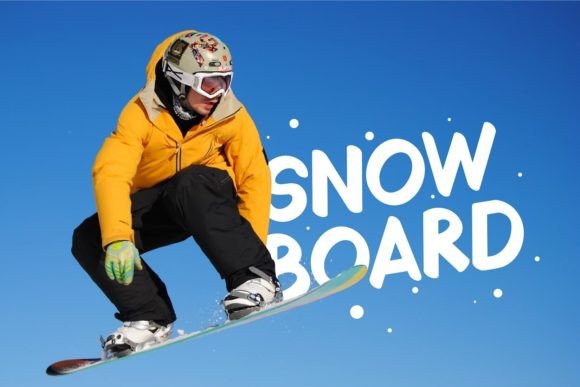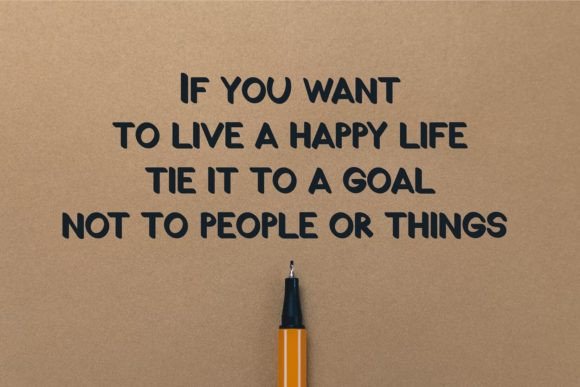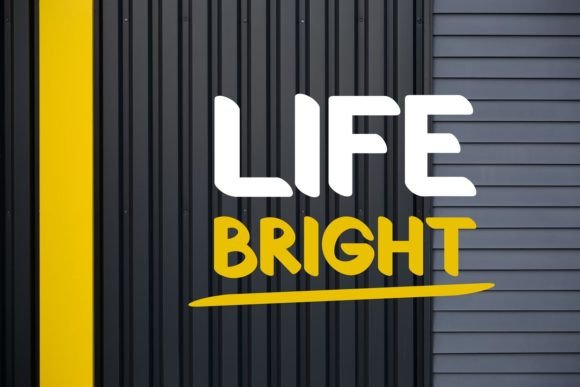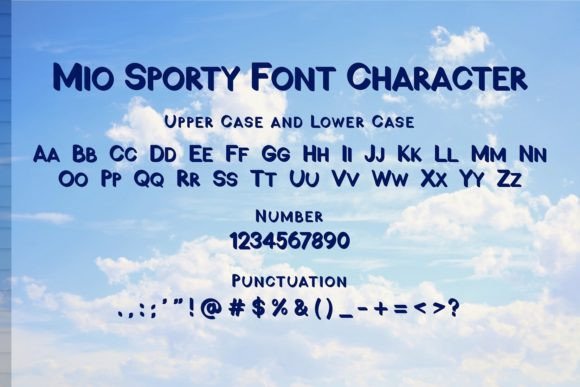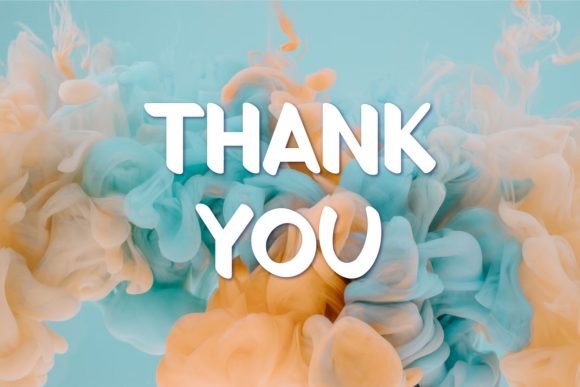
Introduction to Mio Sporty Font
Have you ever found yourself in a creative jam, staring at a blank canvas, and desperately seeking the perfect font to bring your vision to life? For designers, the quest for the ideal typography can be a daunting task. But, what if you stumbled upon a font that not only meets your expectations but exceeds them? Enter Mio Sporty Font, a bold display font designed to elevate your creative project and leave a lasting impression.
As a valuable design resource, Mio Sporty Font offers a unique blend of style and sophistication, making it perfect for branding projects, logo designs, and social media posts. Its high-quality design and transparent background capabilities make it an ideal choice for designers seeking a free download that won’t compromise on quality.
With Mio Sporty Font, you can take your designs to the next level and add a personal touch that resonates with your audience. Whether you’re working on a product packaging design, a wedding invitation, or a product label, this font is sure to make your project stand out.
Key Features of Mio Sporty Font
- High-quality design for creative projects, perfect for sports and fitness themes.
- Comes with a transparent background, allowing for easy customization and composition.
- Designed with a modern and sporty aesthetic, ideal for logos, branding, and typography.
- Features a high-resolution design, suitable for printing and display on various devices.
- Perfect for designers looking for a unique and eye-catching font to elevate their creative project.
Honest Review: Mio Sporty Font
One of the standout features of the Mio Sporty Font is its versatility. It’s perfect for a variety of uses, from sports branding to fitness marketing. I was impressed with the high quality of the font, and it’s definitely suitable for a professional design.
- ✨ Great for sports and fitness branding
- ✨ Suitable for both digital and print design
- ✨ High quality and professional-looking
- ⚠️ Limited character set (only includes uppercase and lowercase letters, with a few symbols)
- ⚠️ No support for transparent background (although this might not be a major issue for some designers)
Overall, I’m impressed with the Mio Sporty Font, and I think it’s a great addition to any design resource collection. While it may not be perfect, it’s a solid choice for designers looking for a high-quality, free font for their creative projects.
The Mio Sporty Font is a free download design resource that can elevate your creative project with its high-quality, modern aesthetic. This versatile font features a transparent background, making it easy to use in various design applications.
Tips for Getting the Most Out of Mio Sporty Font
Common Use Cases for Mio Sporty Font
The Mio Sporty Font is perfect for a wide range of creative projects, including: social media graphics, presentations, documents, and more. Its modern aesthetic and high-quality design make it a great choice for anyone looking to elevate their creative project.